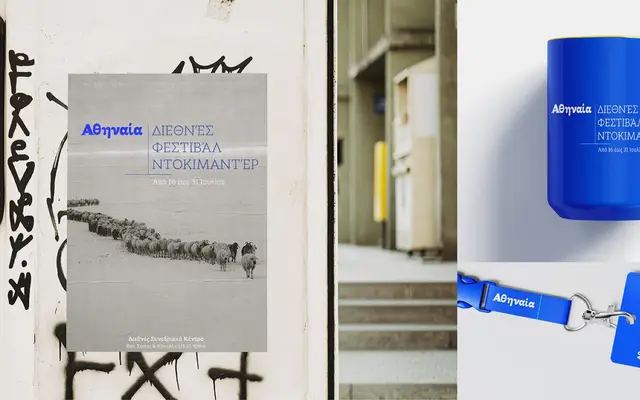
Athenaia
A Greek-only serif family of five weights whose design personality shifts markedly from the classical slab-influenced Thin through to a high-contrast display Black.
Athenaia is built around the idea that a typeface's character can shift substantially across its weight range rather than simply scaling up. The Regular offers moderate contrast suited to long-form editorial text, the Thin draws on 1930s–40s slab serif conventions with a contemporary inflection, and the Black leans into high contrast for titling, packaging and branding. The family supports Greek script only, with OpenType features including cap spacing, case-sensitive forms, arrows and ornamental hands.
Athenaia is a Greek-script serif with shifting personalities across weights: the Regular is a moderate-contrast text face, the Thin adopts a classical slab-serif feel, and the Black moves toward high-contrast display. The dominant design logic sits closest to transitional serif territory.